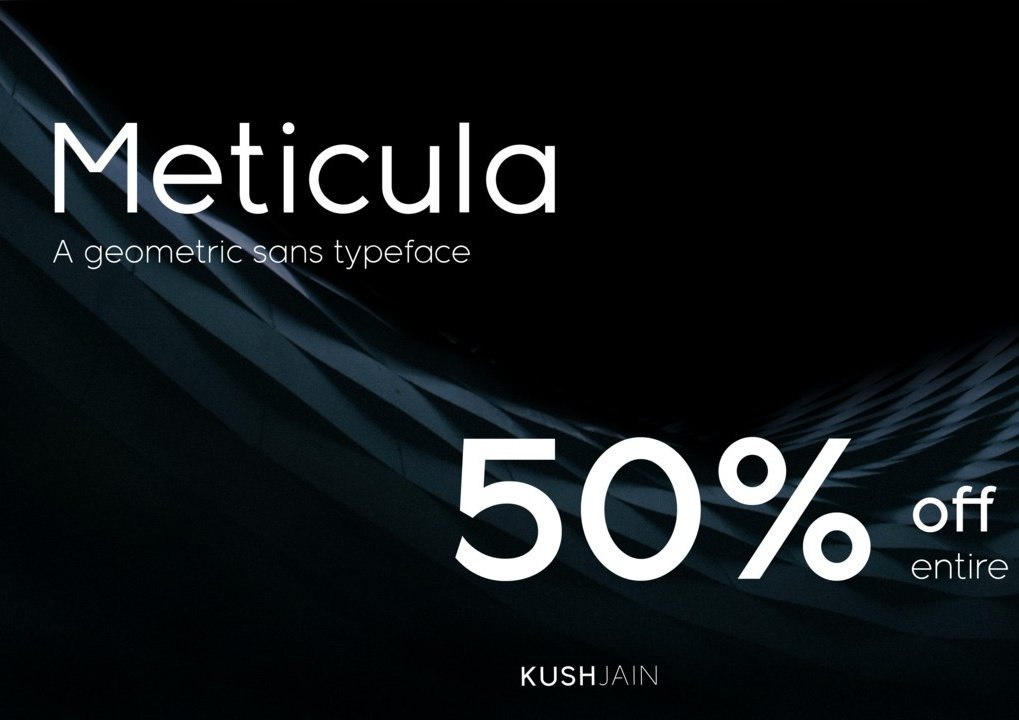
Meticula Sans Free Demo
Meticula Sans Free Demo is the basic version of a sans-serif by Kush Jain. This font family meticulously crafted with geometric shapes and inspired by modern sans typefaces. It’s aesthetic, minimal design and diverse font styles cater to all kinds of typography and graphic design work. This font is free for personal and commercial use.